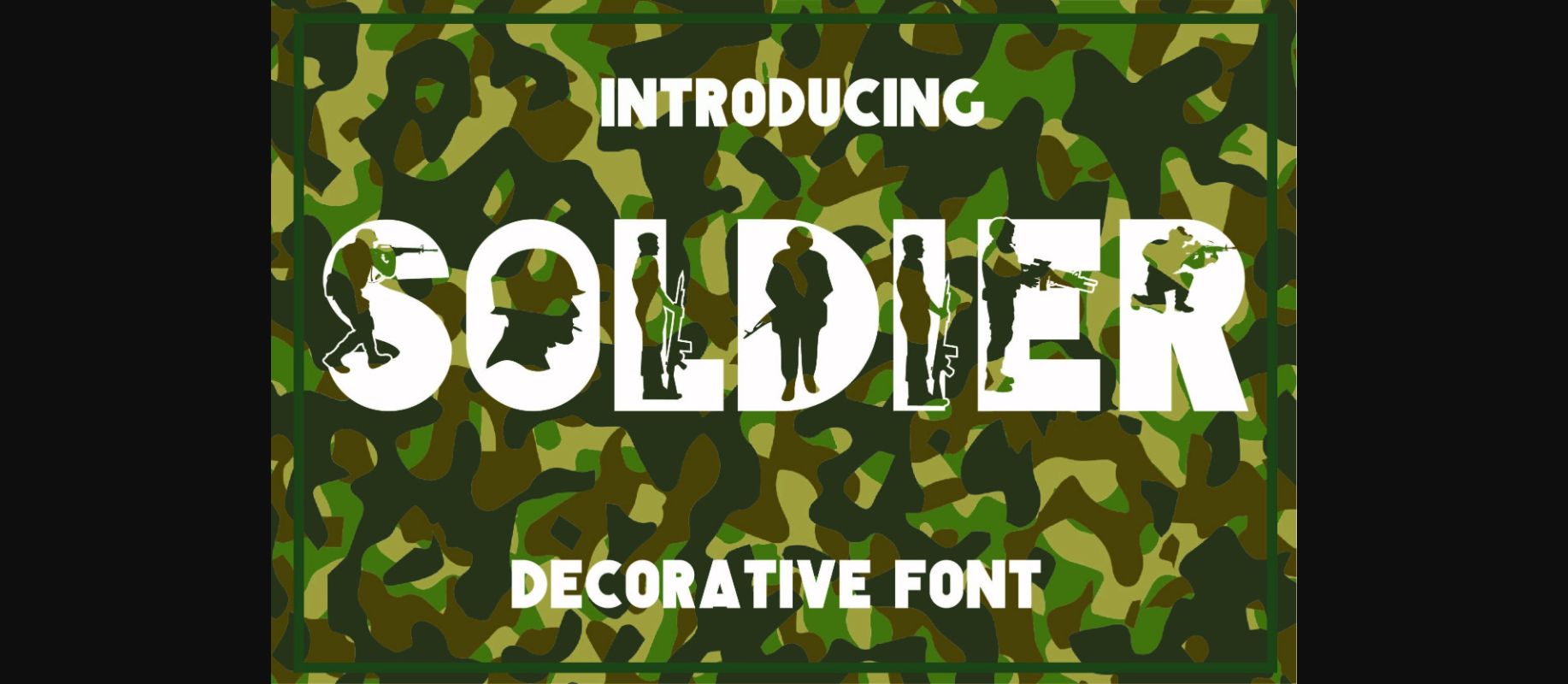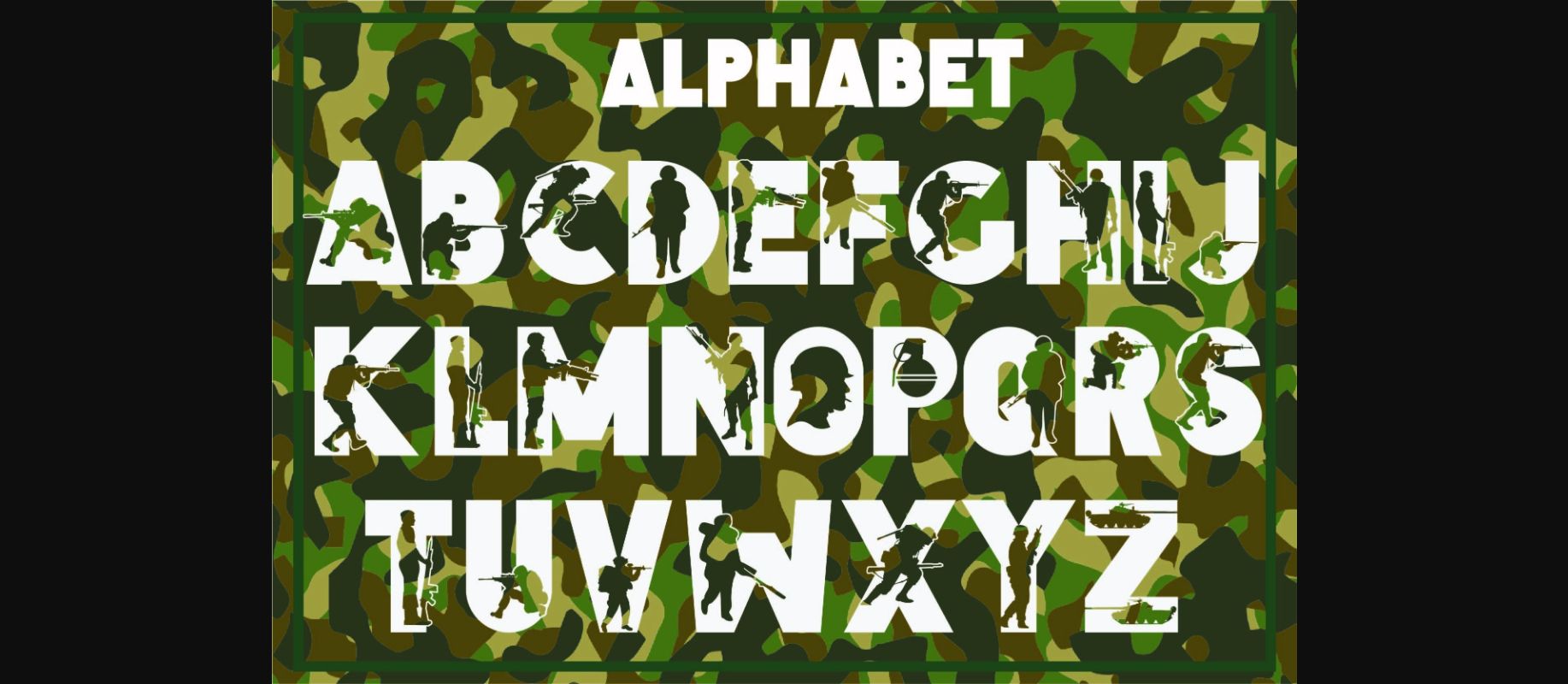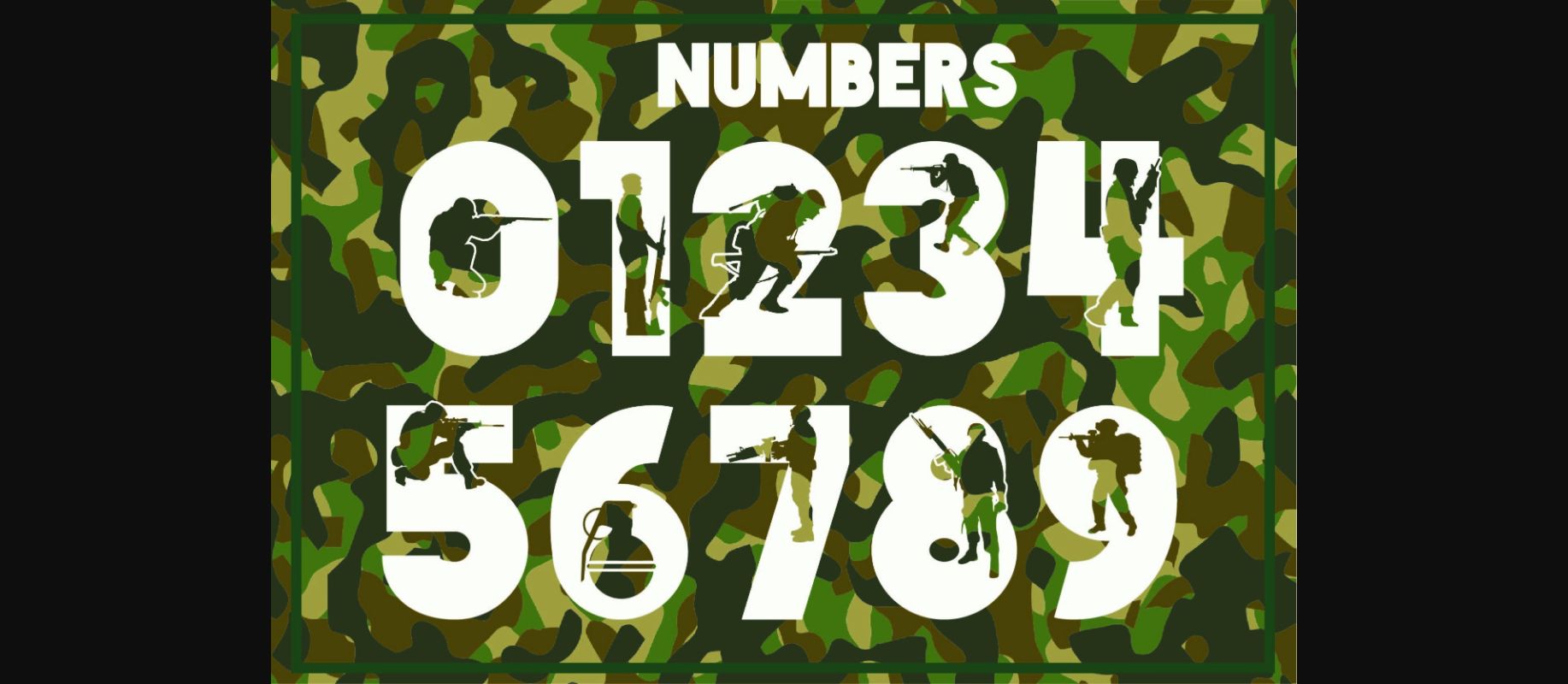
Soldier Font
About Soldier Font
Soldier is a cool and original-looking decorative font. Add it confidently to your creative ideas and you will be impressed by the outcome generated.